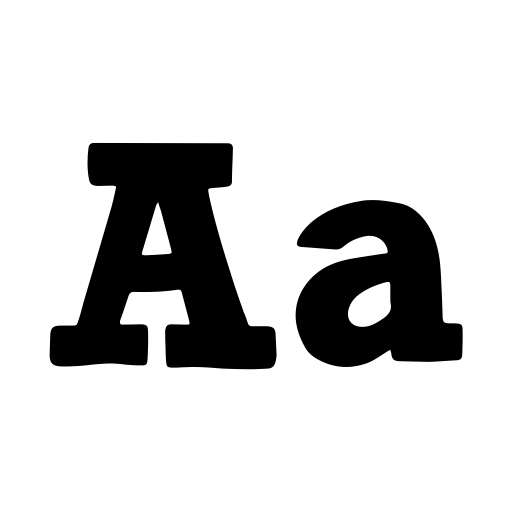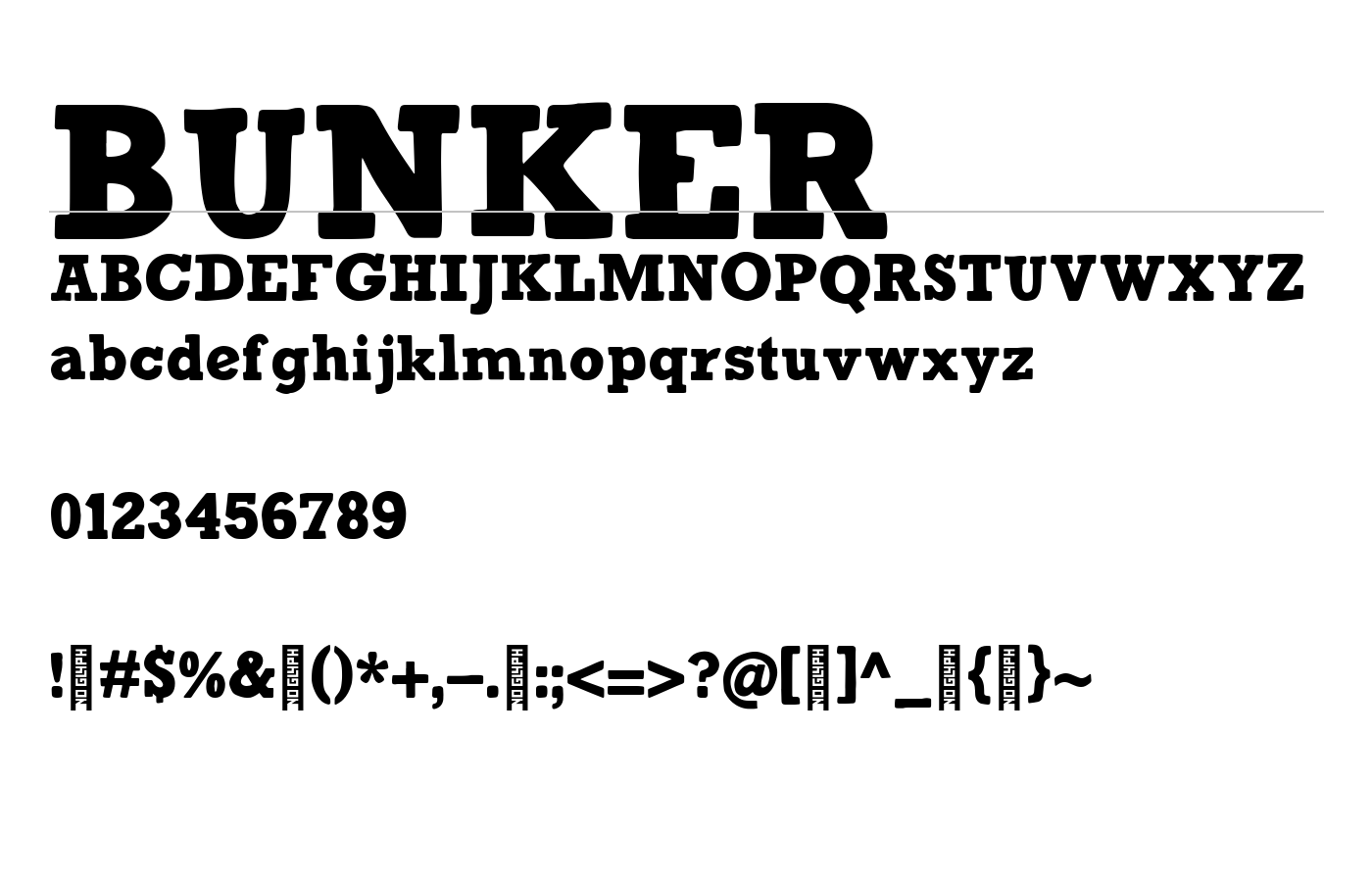
BUNKER is a bold slab serif font with a strong, sturdy presence and slightly rounded edges that soften its robust character. Its high x-height and even, solid strokes make it highly readable while conveying a vintage, industrial feel, ideal for creating impactful headlines, logos, and branding with a confident, approachable tone. This font works well in contexts where a mix of strength and friendliness is desired, such as packaging, posters, and editorial designs seeking a timeless yet modern vibe.
BUNKER Font
About BUNKER Font
| Font family | BUNKER Font |
| Designer | I MADE DWI PUTRA YOGA |